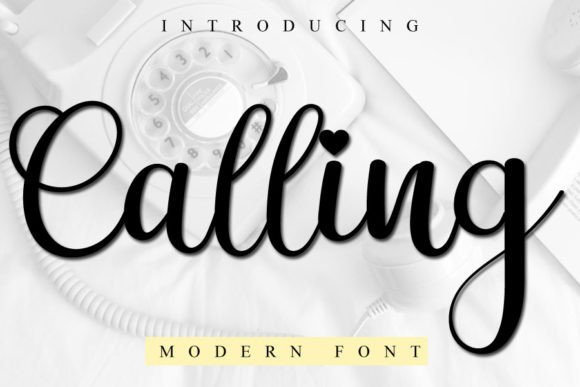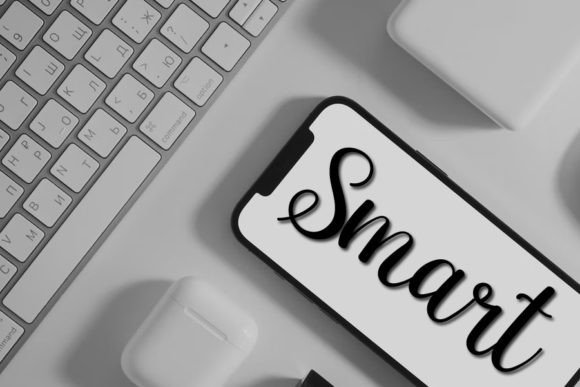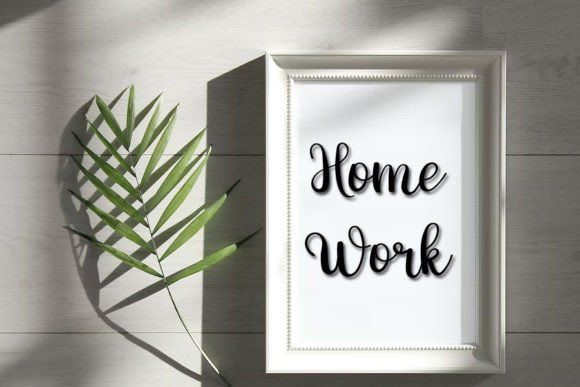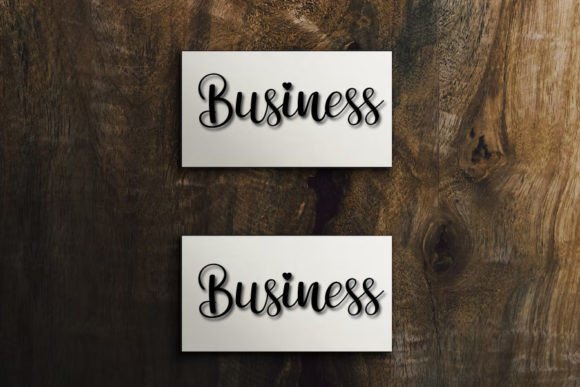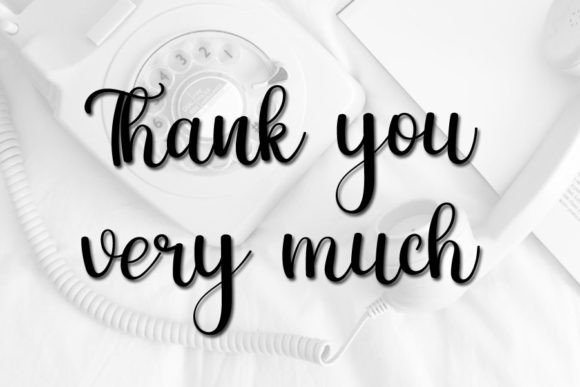
**Calling: A Fun and Friendly Handwritten Script Font**
Meet **Calling**, a playful and friendly handwritten script font that effortlessly combines fun, elegance, and style. This font is the perfect choice for a wide variety of creative projects, bringing a touch of personality and charm to your work.
**Calling** stands out with its casual and approachable letterforms. Its flowing strokes and warm, handcrafted style create a sense of friendliness and authenticity, making it an excellent choice for projects that require a welcoming and inviting tone.
This font’s versatility shines through, making it suitable for a broad range of applications. Whether you’re working on branding, social media posts, invitations, greeting cards, or any other creative endeavor, **Calling** proves to be a reliable and stylish choice.
For branding projects, this font adds a unique and personal touch to your visual identity. It helps your brand establish a warm and approachable image, resonating with customers on a personal level.
On social media platforms, **Calling** ensures your posts have a friendly and engaging appearance. It adds a touch of charm to your content, making it relatable and relaying your message with authenticity.
In conclusion, **Calling** is more than just a font; it’s a design asset that brings a sense of fun, friendliness, and style to your creative projects. Whether you’re designing for branding, digital marketing, or any other context, confidently incorporate **Calling** to infuse your work with its welcoming and playful character. Embrace its casual charm, and let your creativity shine with a touch of elegance.